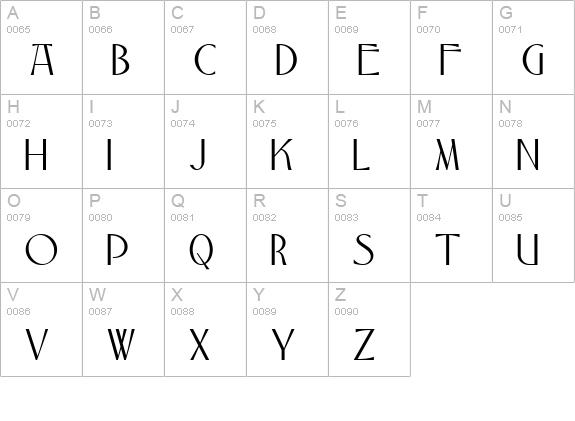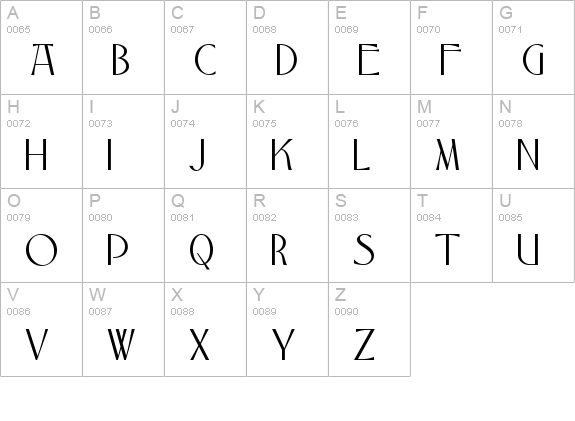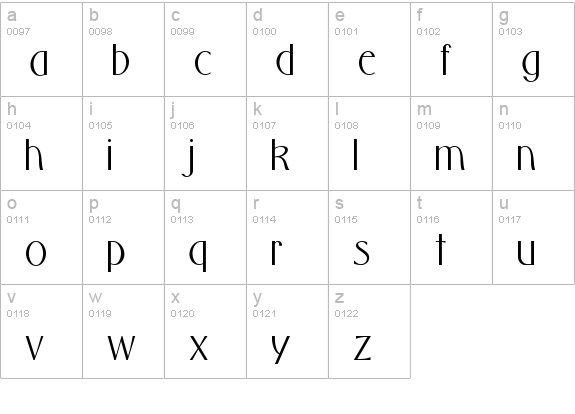
PonteVecchioNF Font Details
PonteVecchioNF is a stunning and elegant font that exudes sophistication and style. With its unique design and beautiful curves, this font is perfect for adding a touch of class to any project. Whether you're designing invitations, creating a logo, or working on a branding project, PonteVecchioNF will make your text stand out. The best part? PonteVecchioNF is completely free to download at FontsMarket.com. With just a few clicks, you can add this gorgeous font to your collection and start using it in your designs right away. Don't miss out on the opportunity to elevate your projects with the timeless beauty of PonteVecchioNF. Download it today and let your creativity shine!